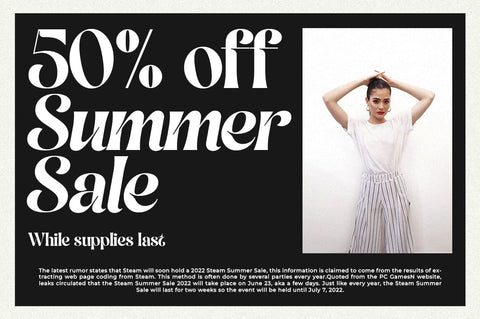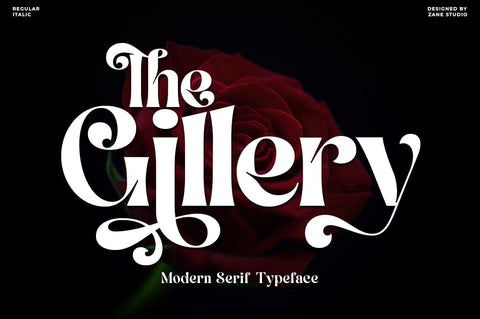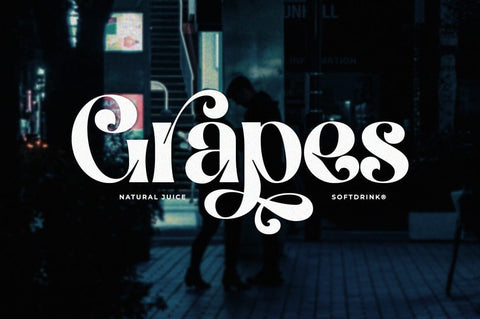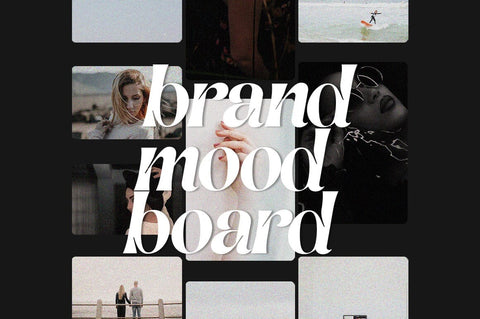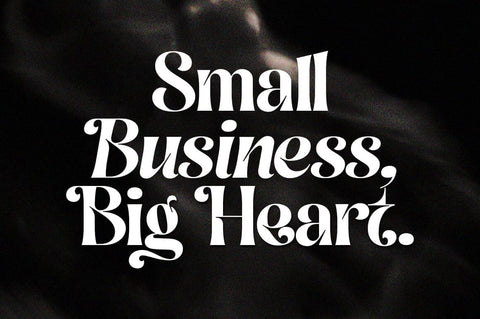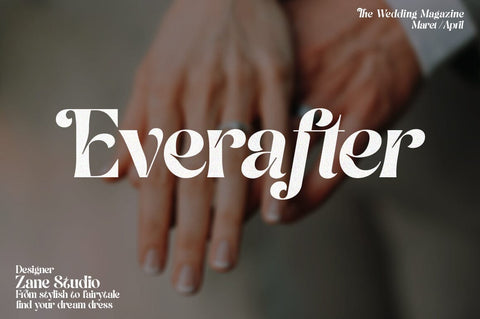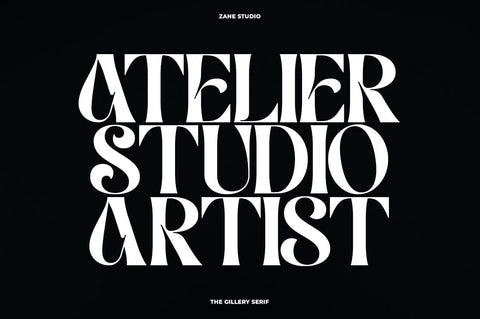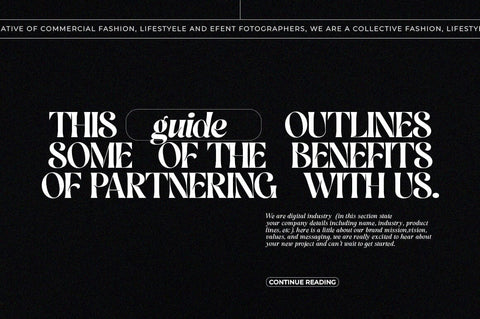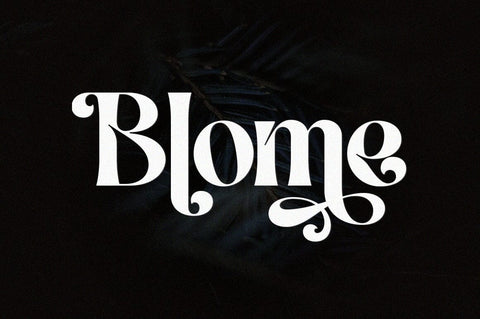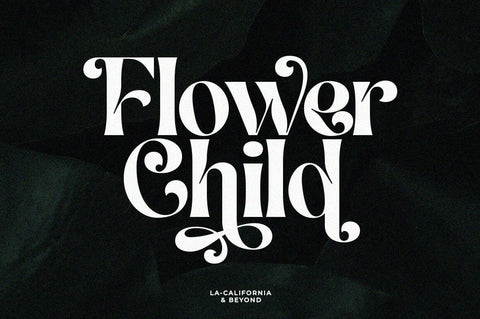
The Gillery - Modern Serif Typeface
The Gillery - Modern Serif Typeface - Expressive Feminine Branding Logo Font.
The Gillery Serif comes with several alternatives and ligatures, so you can combine them to create the perfect typography design. It's perfect for your upcoming project. Such as luxury logos and branding, classy editorial designs, women's magazines, cosmetic brands, fashion promotions, art gallery branding, museums, architectural history, boutique branding, stationery design, blog design, modern advertising design, invitation cards, art quotes, home decoration , book titles/covers, special events, and more.
There he is! Have fun with the Gillery Serif Font.